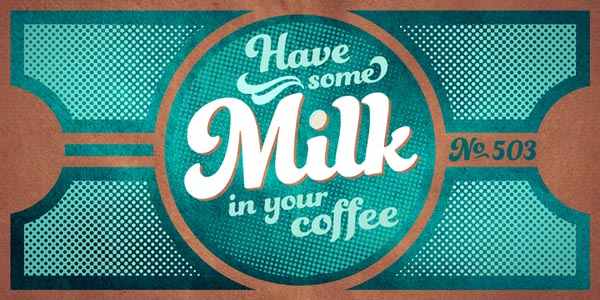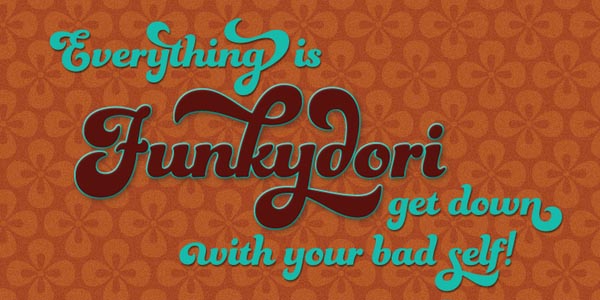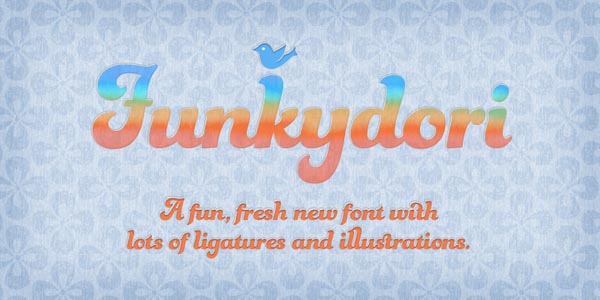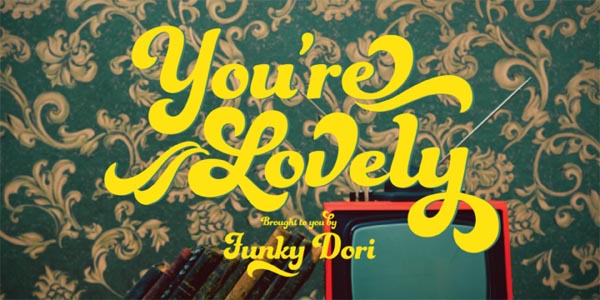
Funkydori Font – Retro 60s/70s Typeface by Laura Worthington
Funkydori is a font designed by Laura Worthington. A very groovy retro typeface inspired by the style of the 60s and 70s.
“Funkydori comes equipped with 213 alternates, 13 discretionary ligatures and 38 ornaments (which include 8 wallpaper tiles) allowing for a wide variety of looks. The use of contextual alternates keeps it looking ideal and enabling Titling Alternates switches the design to an unconnected script.”